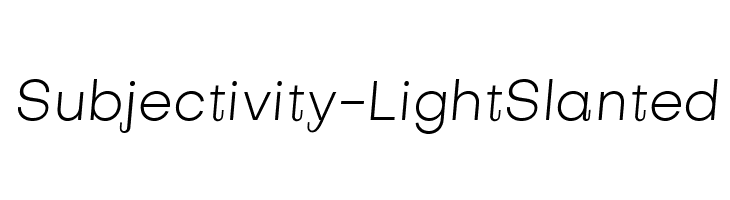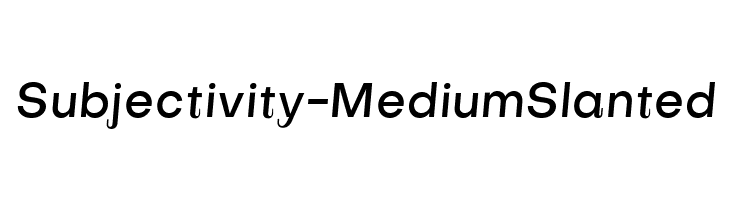
• Subjectivity-Black schriftart
A bold and impactful font with thick, uniform strokes.
• Subjectivity-BlackSlanted schriftart
A bold, slanted font with a dynamic and energetic style.
• Subjectivity-Bold schriftart
A bold, modern sans-serif font with clean lines and a strong presence.
• Subjectivity-BoldSlanted schriftart
A bold, slanted font with strong strokes and a modern, dynamic style.
• Subjectivity-ExtraBold schriftart
A bold, geometric font with thick strokes and a modern design.
• Subjectivity-ExtraBoldSlanted schriftart
A bold, slanted font with a modern and dynamic style.